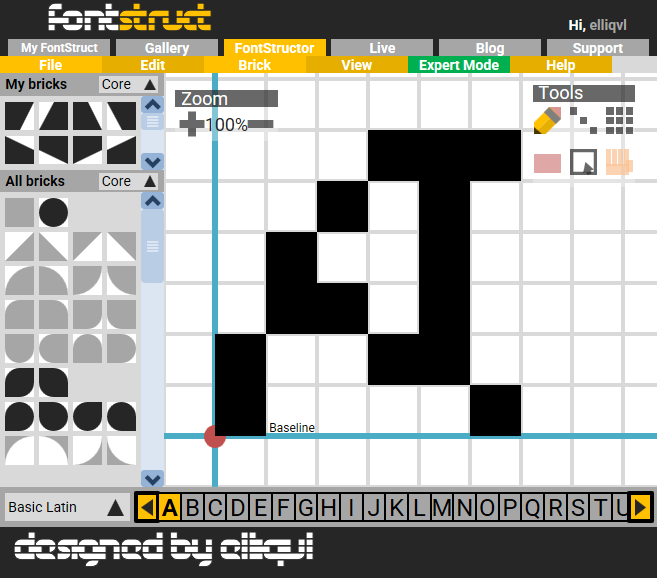
• for consistency
ok but why is no one talking about the og cipher
@VeritasFonts it's because Scream Cipher popularized the "letter/number/symbol cipher" fonts, so this one is the "Genre Popularization-er"
@veritas because i thought you meant this one
i think this is the first source in the fontstruct wiki
whoops that's pointing the wrong way, it should be pointing at
designed a custom ui for the fontstructor in powerpoint 2016